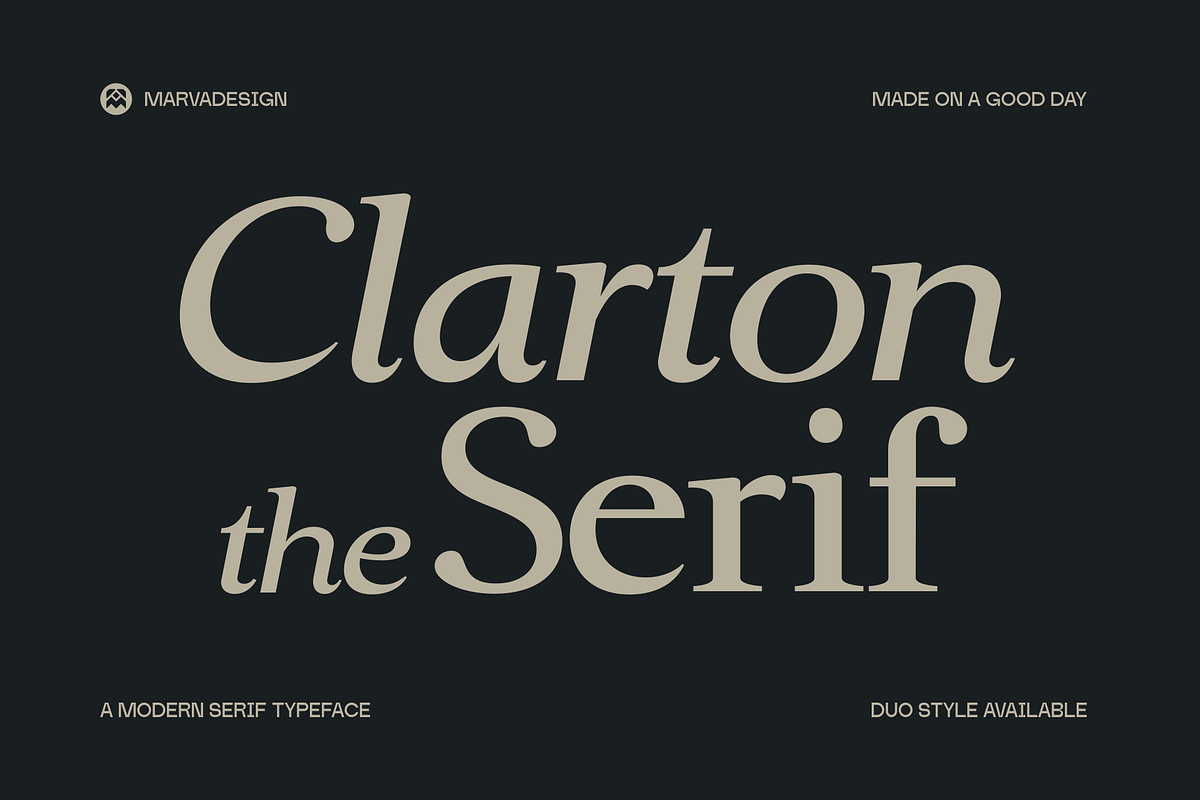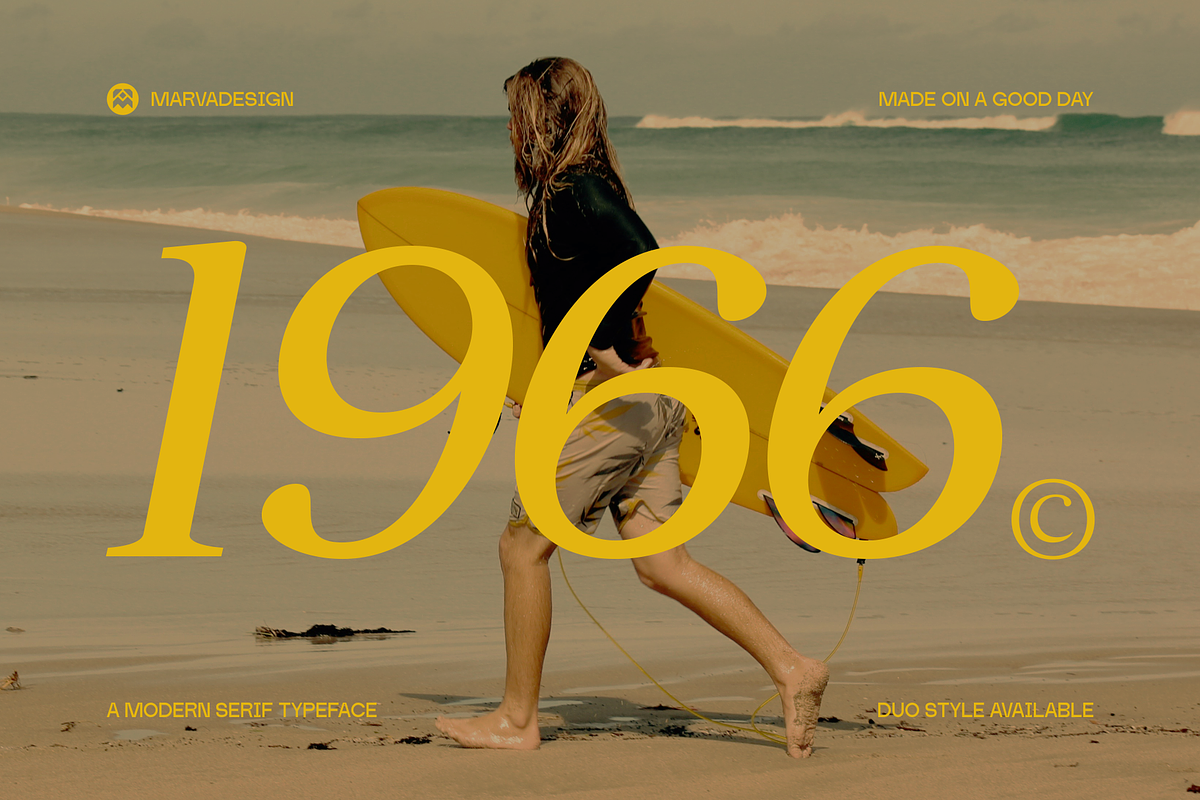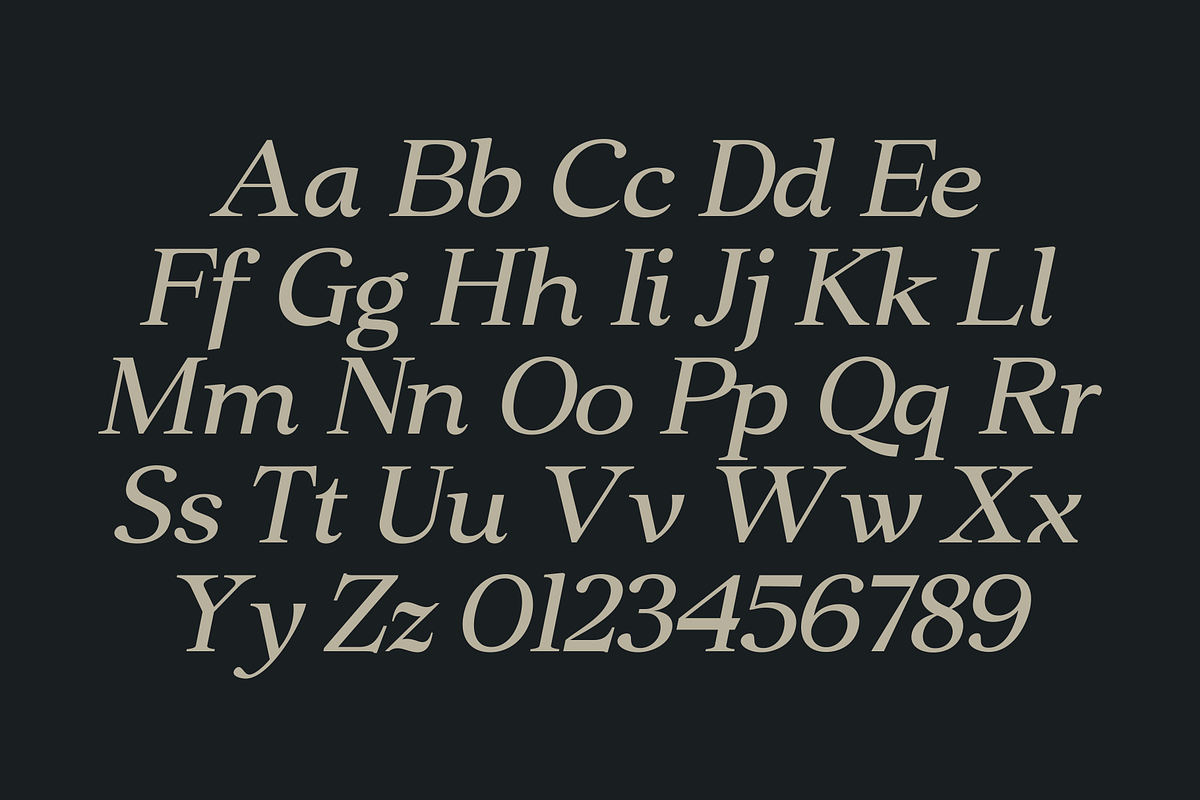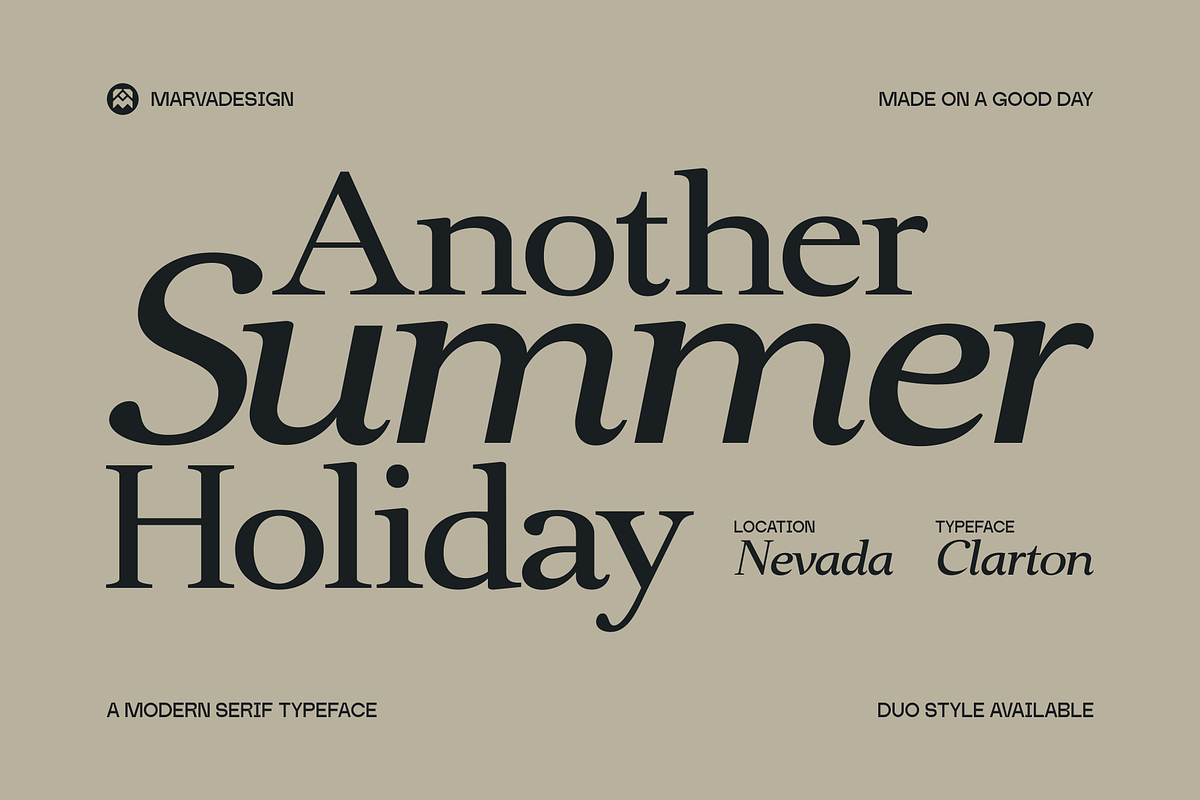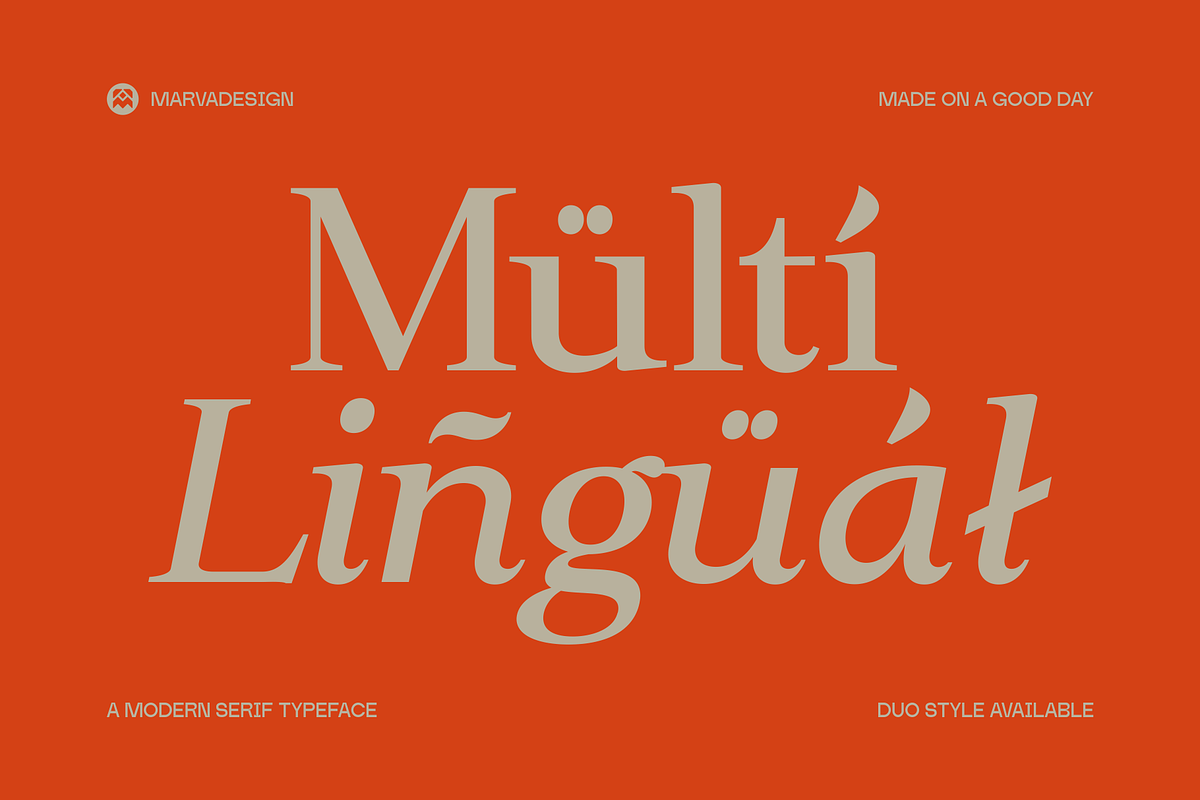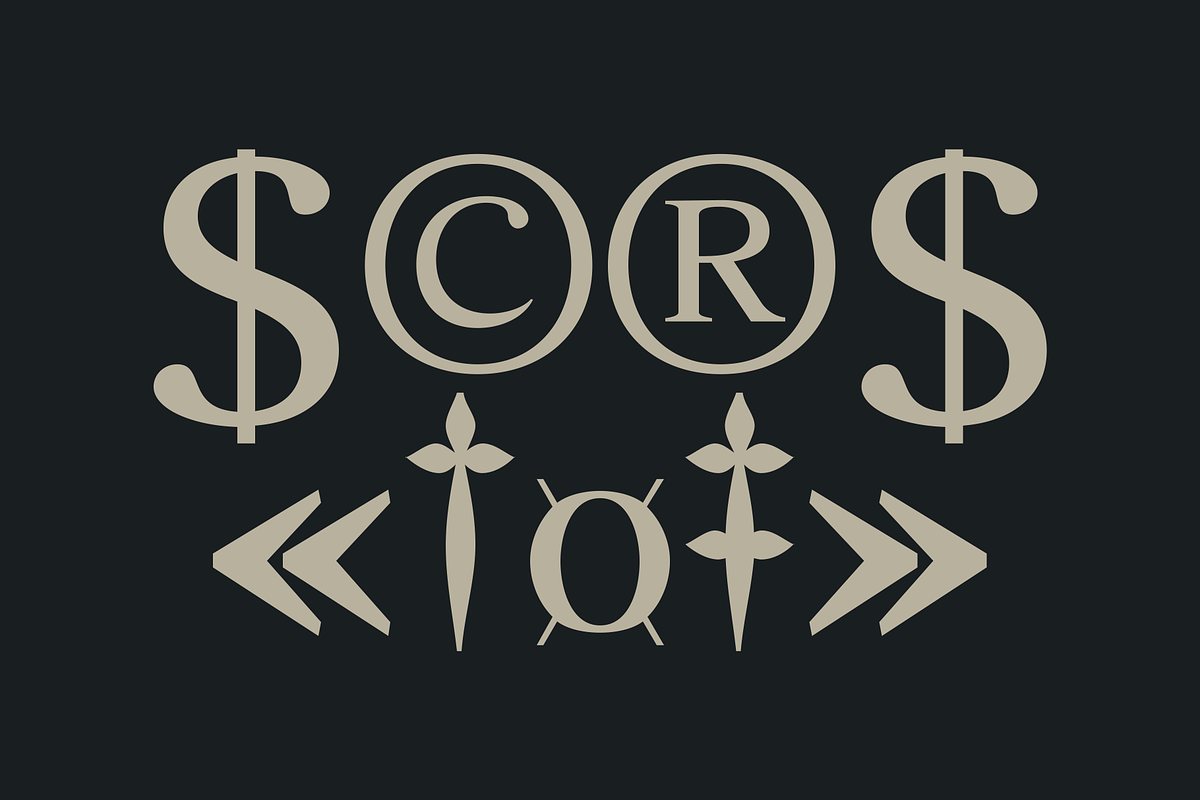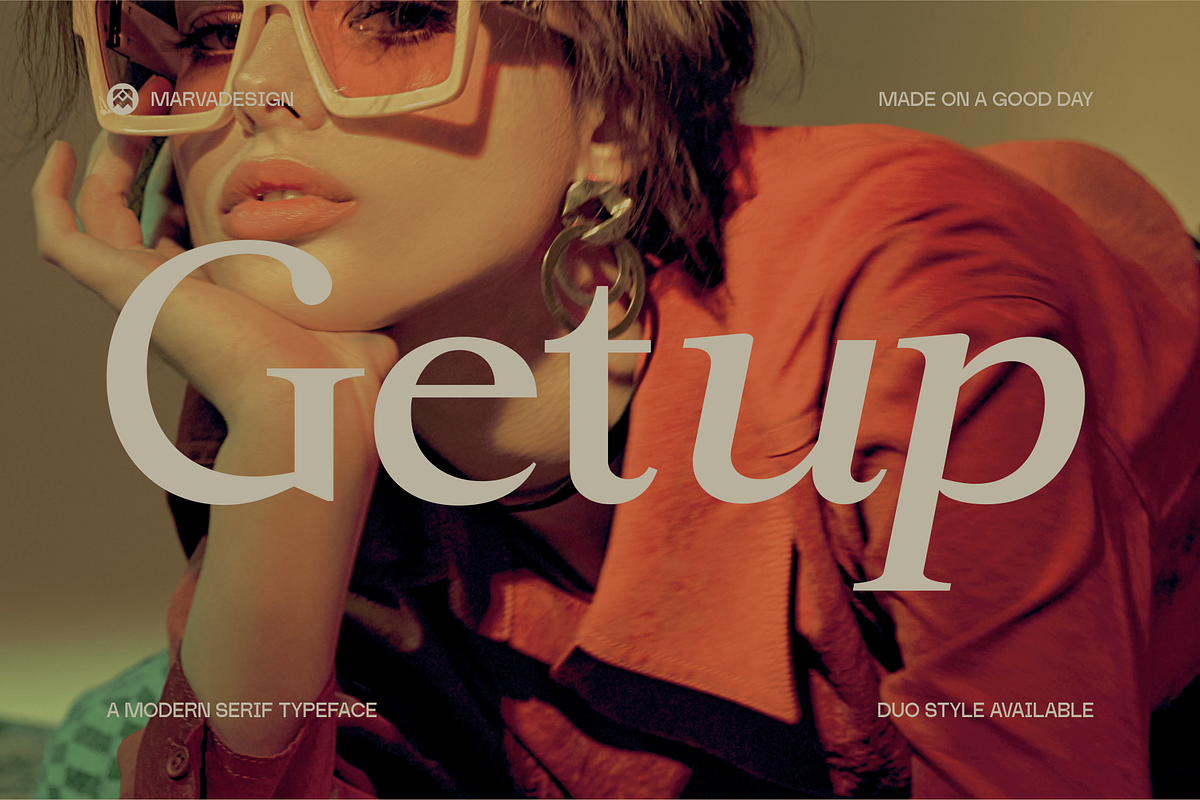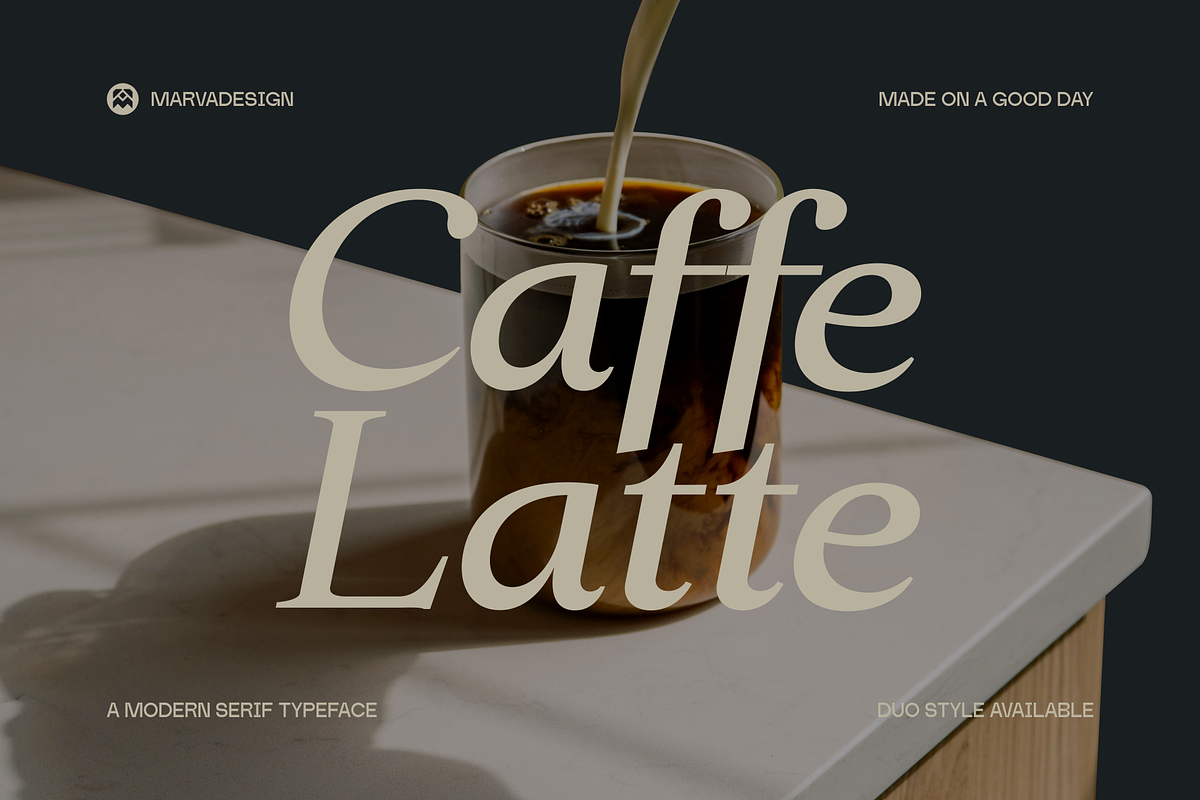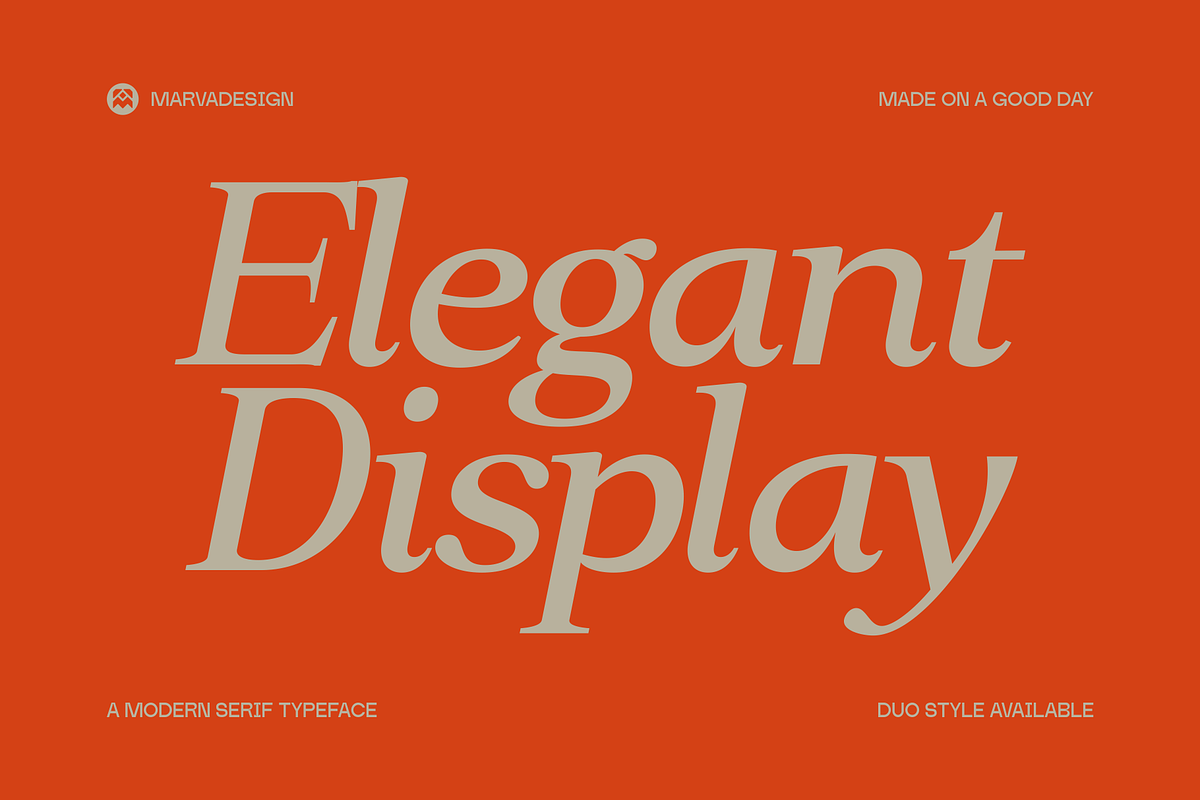
Clarton - Elegant Serif Font
The Clarton Serif is a modern serif typeface that embodies elegance, sophistication, and contemporary flair. It features a high contrast between thick and thin strokes, graceful curves, and sharp yet refined serifs, making it perfect for luxury branding, editorial layouts, magazine headlines, and any design that seeks a timeless aesthetic. The font includes a natural italic style, adding a sense of motion and expressive rhythm to the text. With its well-balanced uppercase and lowercase characters, Clarton Serif is ideal for display purposes and short-form text that demands strong visual presence.